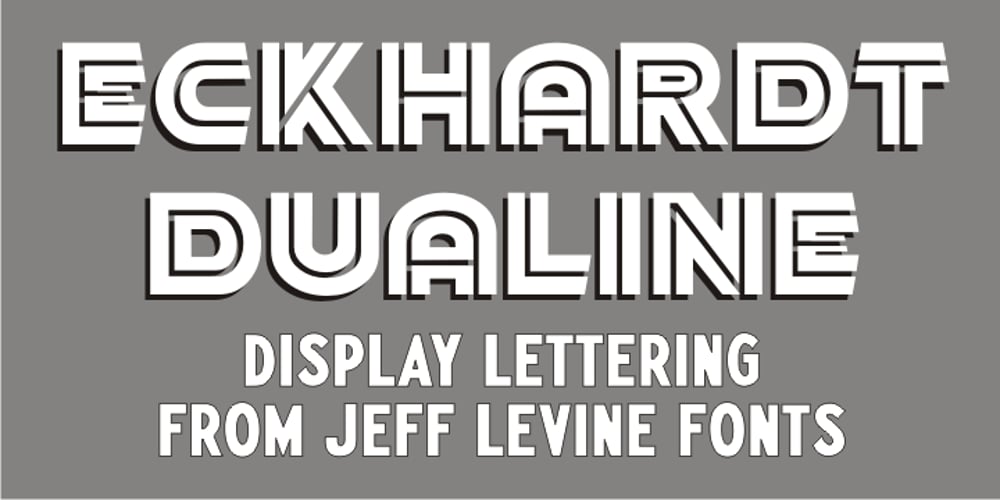
Eckhardt Dualine JNL
Eckhardt Dualine JNL font
Eckhardt Dualine JNL Font Family was designed by Jeff Levine and published by Jeff Levine. Eckhardt Dualine JNL contains 1 styles and family package options. While searching online for vintage type inspirations, an image was spotted of an old letterhead for a steel manufacturing company. The hand lettering of the word ‘Ludlum’ only offered D,L,M and E as visual examples, but from this Jeff Levine has designed Eckhardt Dualine JNL – a Deco-flavored dual-line type font. As with a number of other releases that emulate hand-lettering or sign painting, Jeff has named this font in honor of his good friend, the late Albert Eckhardt, Jr.; who ran Allied Signs in Miami from 1959 until his passing.